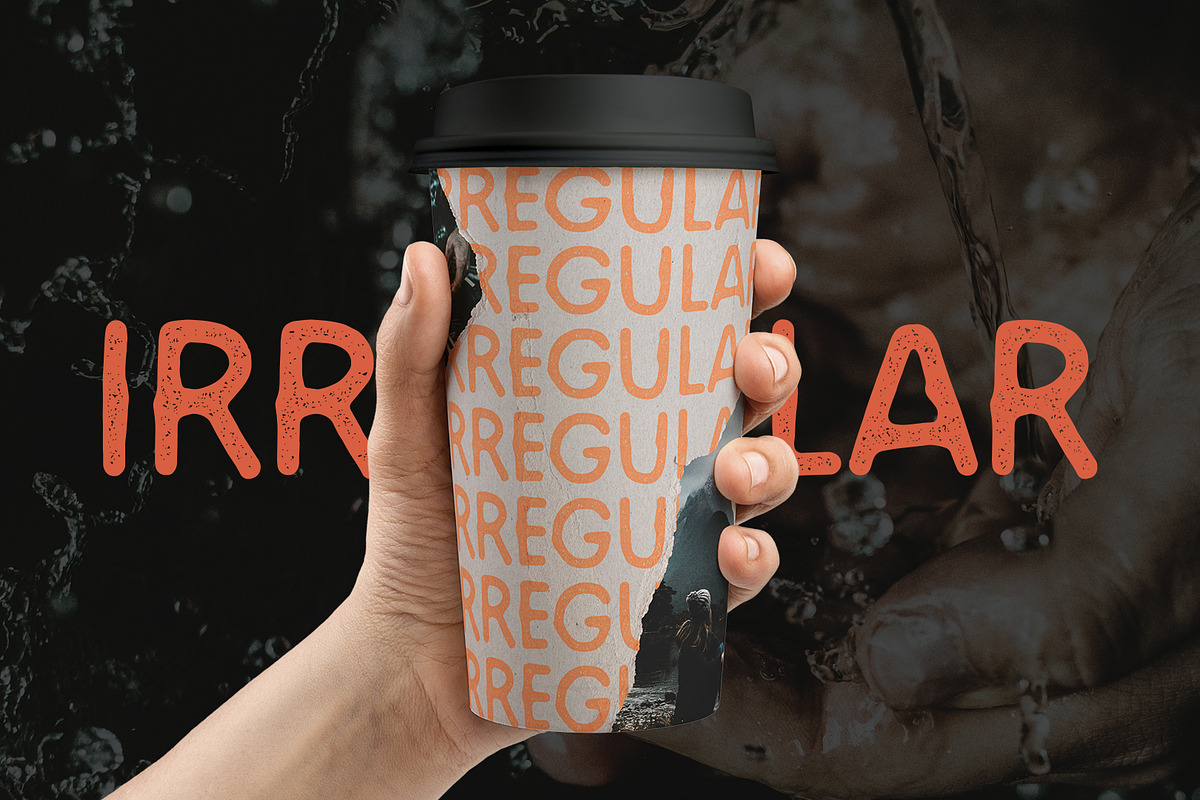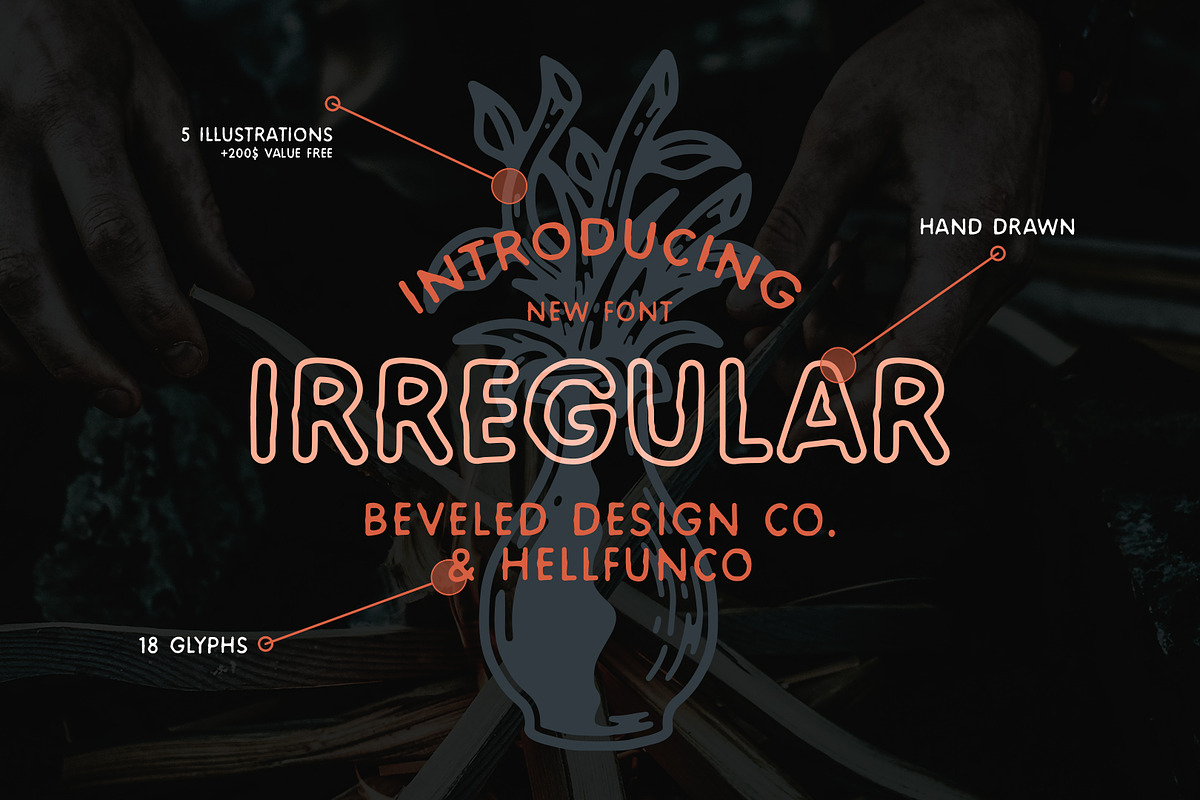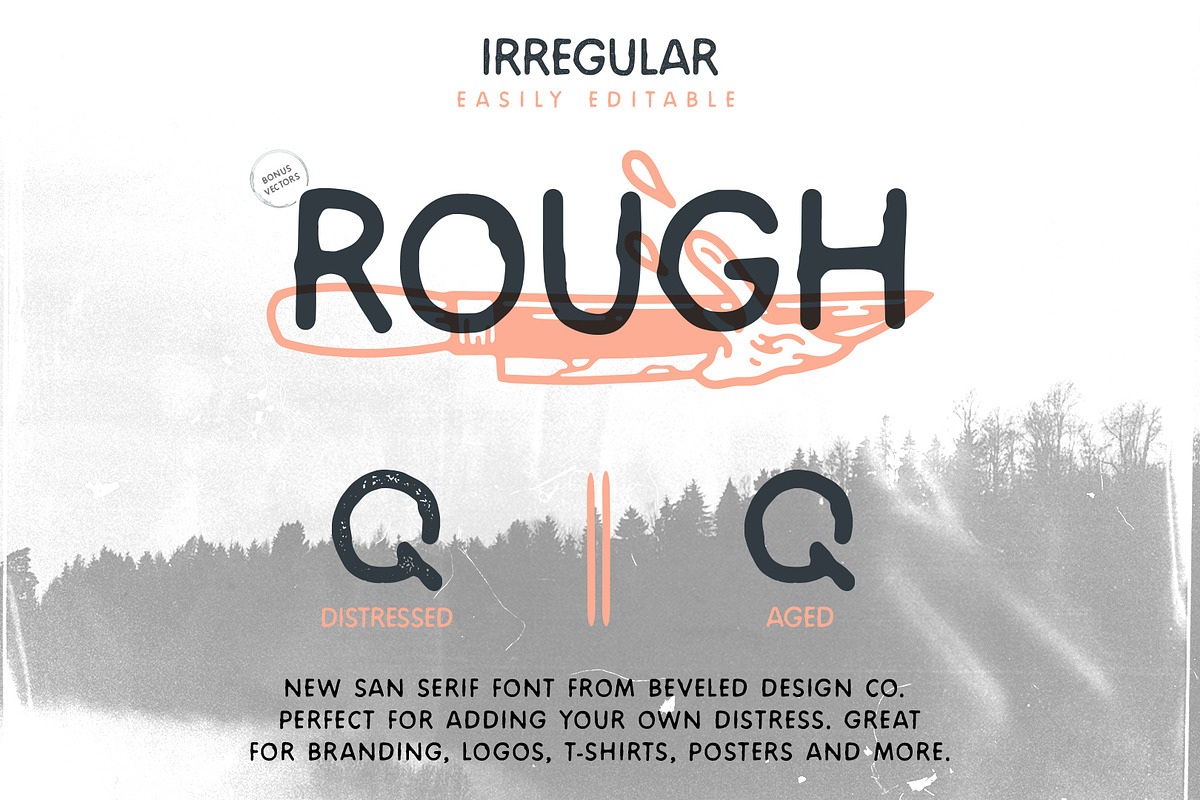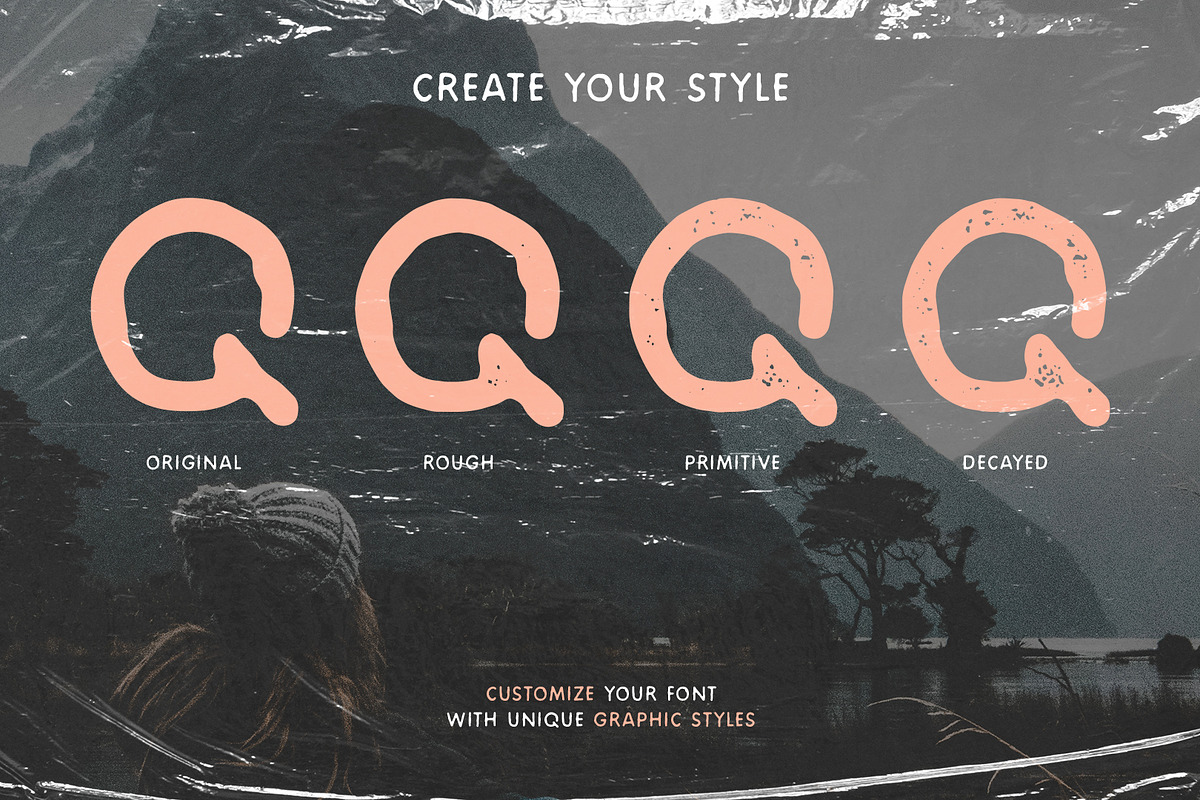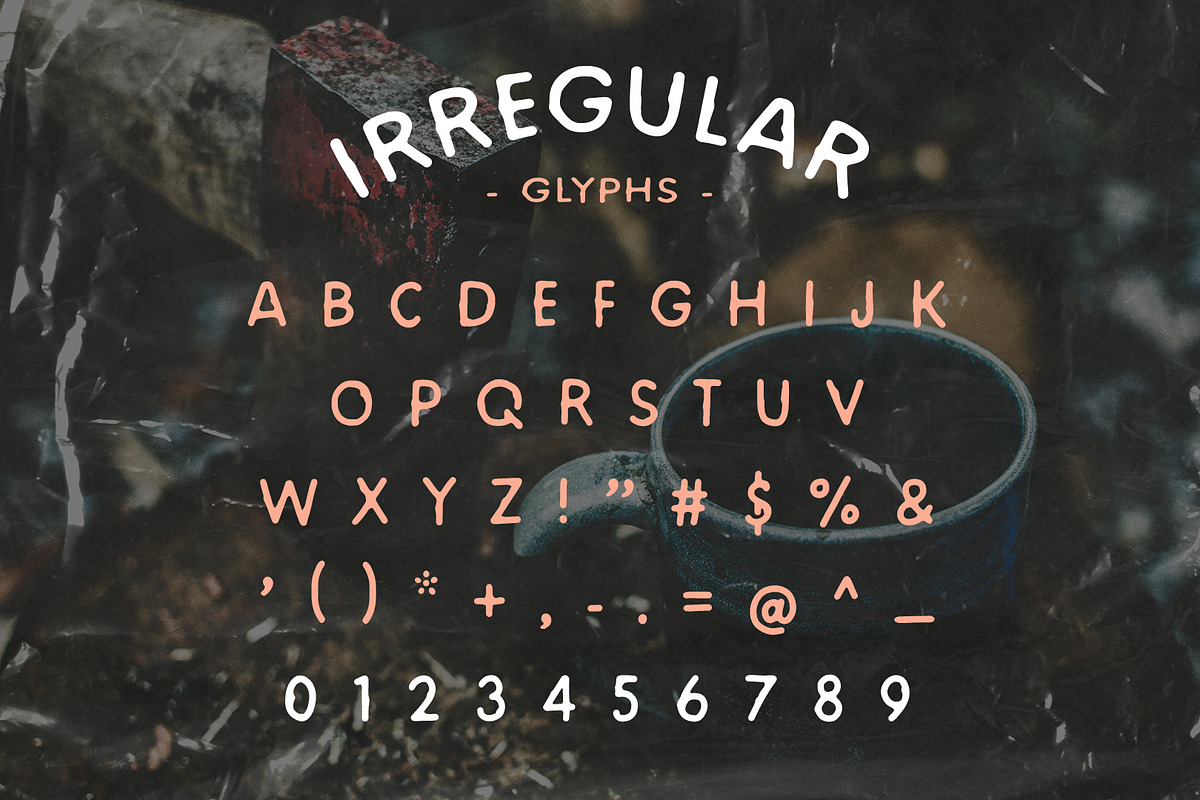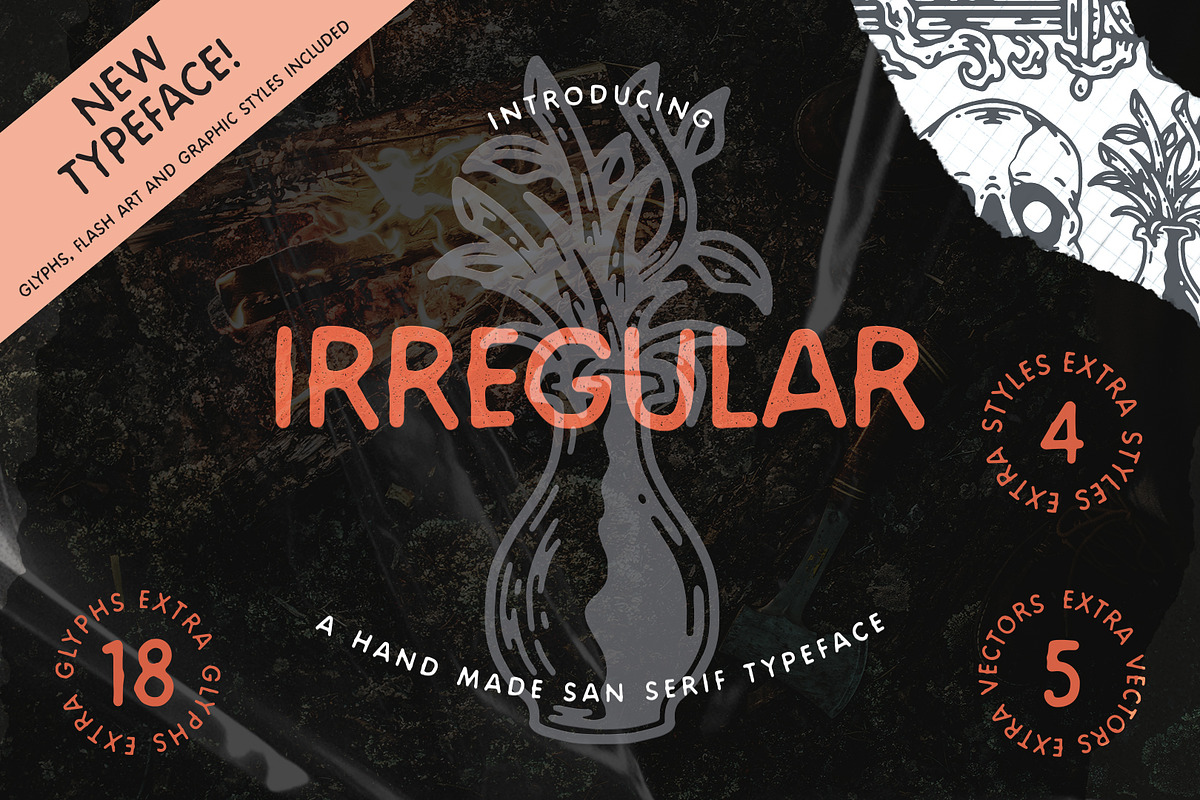
Irregular | Handmade Sans-serif Font
!!NEW FONT!! Irregular includes 5 unique hand illustrated vectors and 4 custom graphic styles for your next project. Textured, distress and rustic, Irregular is perfect for your next project!
Introducing - Irregular a hand crafted san serif display typeface.
The Irregular typeface contains 18 additional glyphs to help you mind your P’s and Q’s. Irregular conveys authentic hand crafted aesthetic. This font is inspired by nature and the outdoors. It’s rough edges and organic feel reinforce this motif. The additional illustrations convey a sense of nostalgia and adventure as well with their rough and distressed style.
Irregular (OTF) includes 18 additional glyphs for your use. This typeface is all uppercase.
4 Custom graphic styles to individualize your font(s)